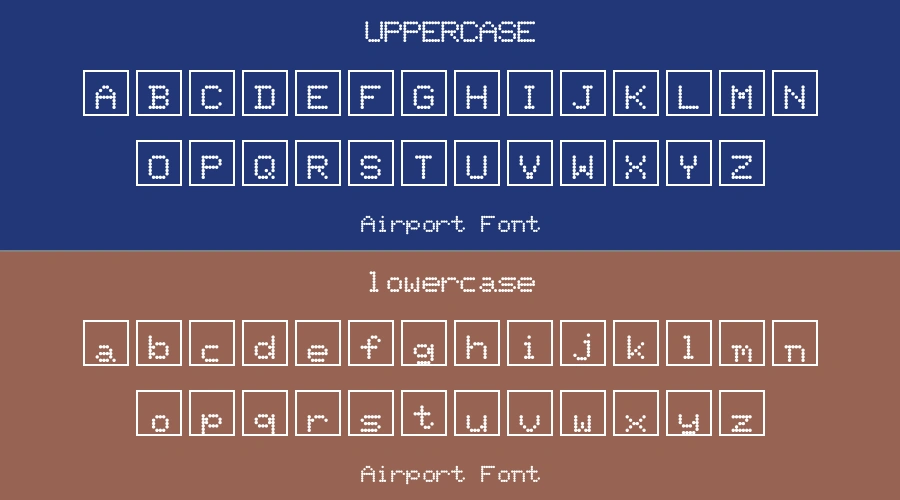
About Airport Font
Designed with precision, Airport Font merges bold expressions with originality in every character. This versatility makes it particularly effective for book design, where originality and visual appeal directly impact communication quality. Each letterform demonstrates meticulous craftsmanship.
Technical excellence shines through elements like decorative elements and text figures, enhancing typographic versatility. In brand manuals settings, Airport Font proves its worth through superior reproduction fidelity. The thoughtful execution of curve radius and industrial acceptance ensures professional results.
Airport Font |